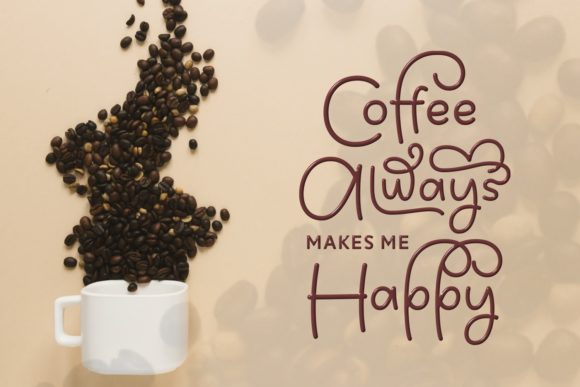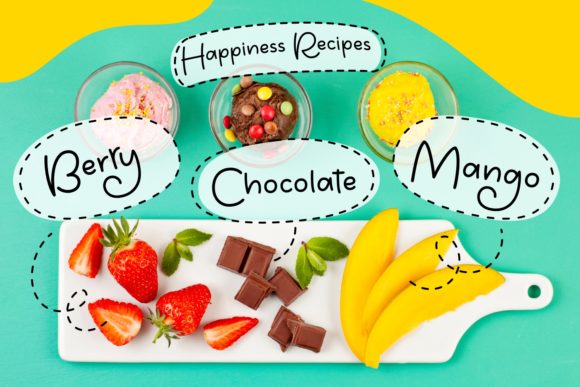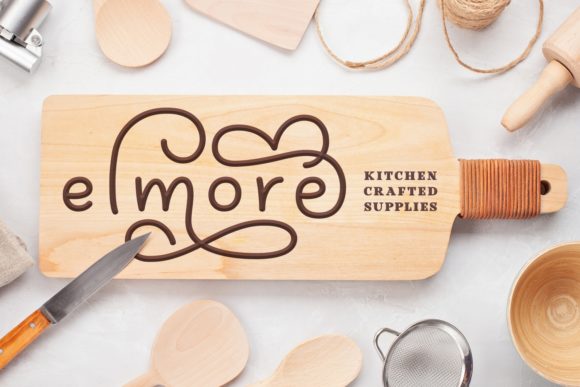
Coffyan Font
About Coffyan Font
Coffyan is a sweet, soft hand-lettered script font. Its playfully rounded characters make it the perfect font for creating stunning kids or nature-themed art. Coffyan comes packed with beautiful PUA-encoded swashes, that will allow you to add a decorative touch within seconds. It comes in 2 unique font styles, regular and italic. Fall in love with its romantic feel and use it to create gorgeous wedding invitations, beautiful stationary art, eye-catching social media posts, and cute greeting cards.
This font is PUA encoded which means you can access all of the beautiful glyphs and swashes with ease! It also features a wealth of special features including alternate glyphs and ligatures.